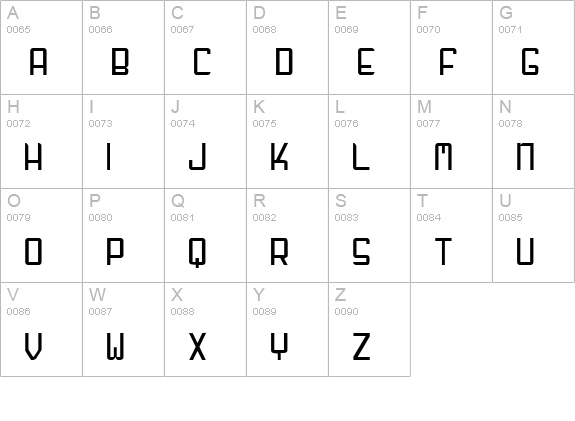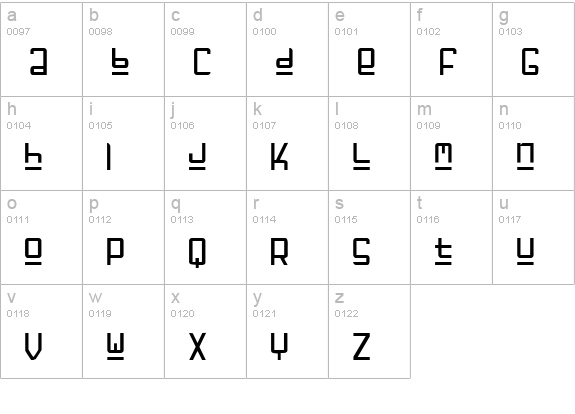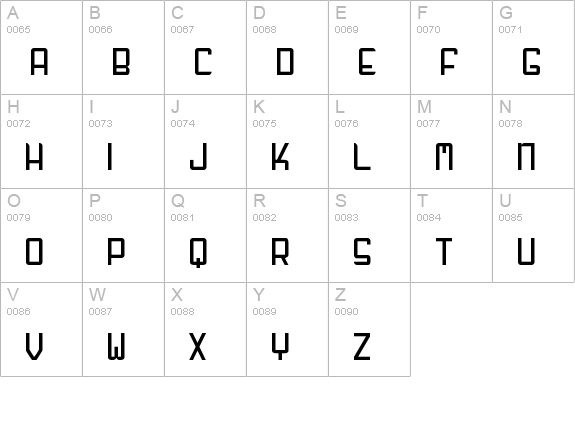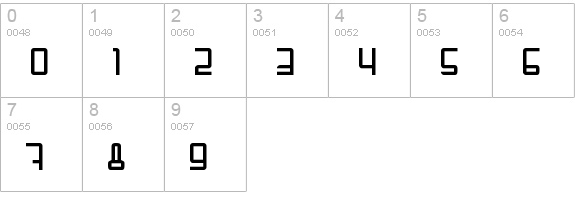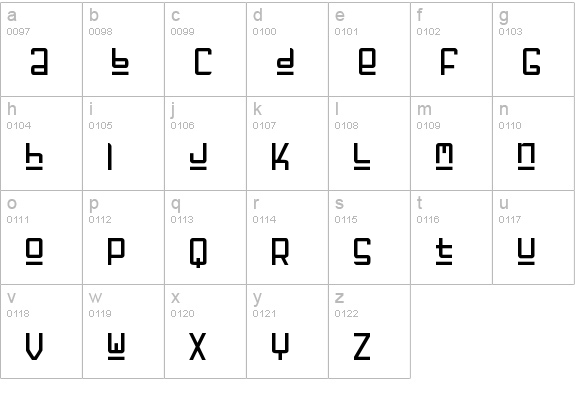
GF Fuffiger Font Details
GF Fuffiger font is a modern and elegant typeface that exudes sophistication and charm. Its unique letterforms and subtle curves make it perfect for a wide range of design projects, from branding to editorial design. The font's clean lines and legibility make it a versatile choice for both digital and print applications. The best part about GF Fuffiger font is that it is completely free to download at FontsMarket.com. This means that you can access this beautiful typeface without any cost, making it a valuable addition to your font library. Whether you are a professional designer or a hobbyist, GF Fuffiger font offers a high-quality option that can enhance your creative projects. With its timeless appeal and modern aesthetics, GF Fuffiger font is sure to make a statement in any design you use it for. Download it for free today and elevate your typography game with this stunning typeface.